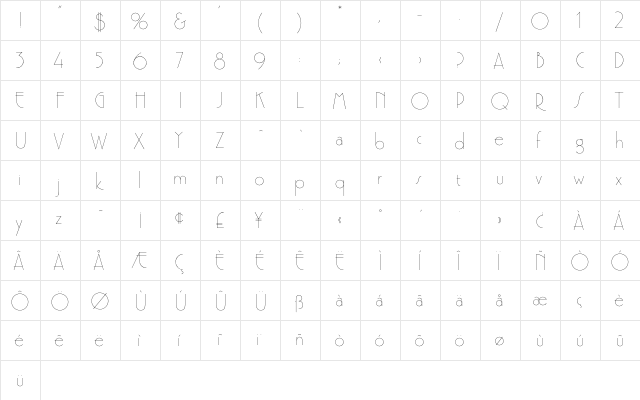
Premier .. Lightline
Design Context for Premier Typeface
Premier offers clean, dependable letterforms without strong stylistic allegiance, making it a practical choice for designers who need flexibility. Its slender proportions lend an understated elegance to any composition.
Pro Tip: Pair Premier with a font of contrasting weight or personality to build a more expressive typographic hierarchy.